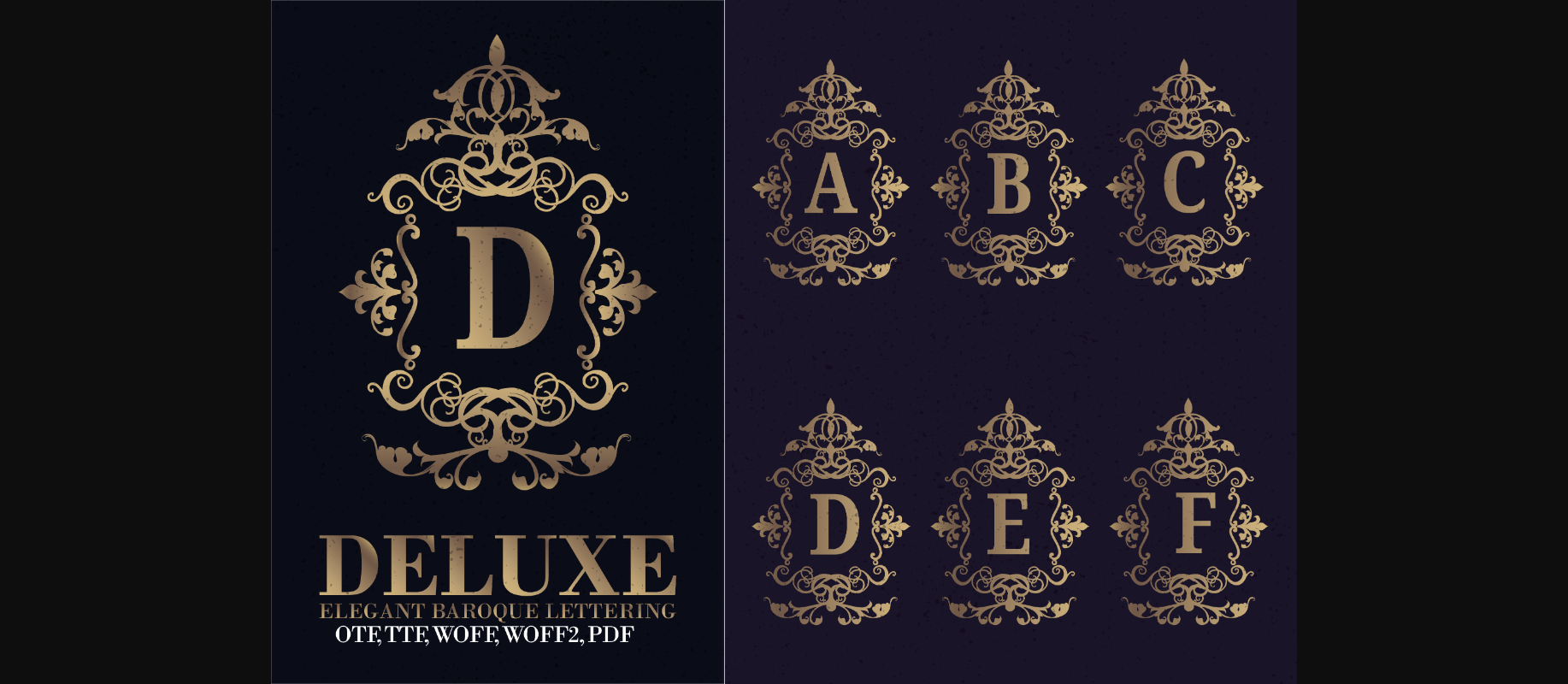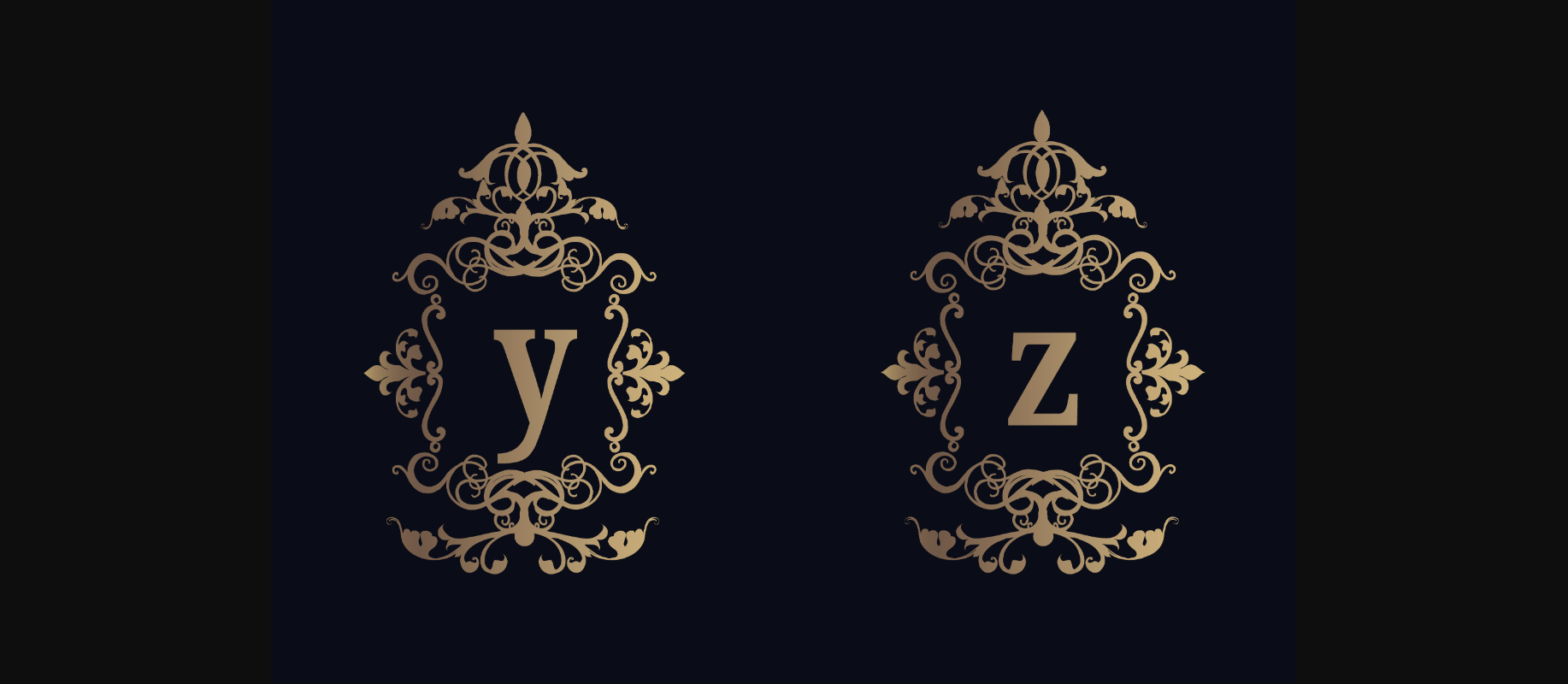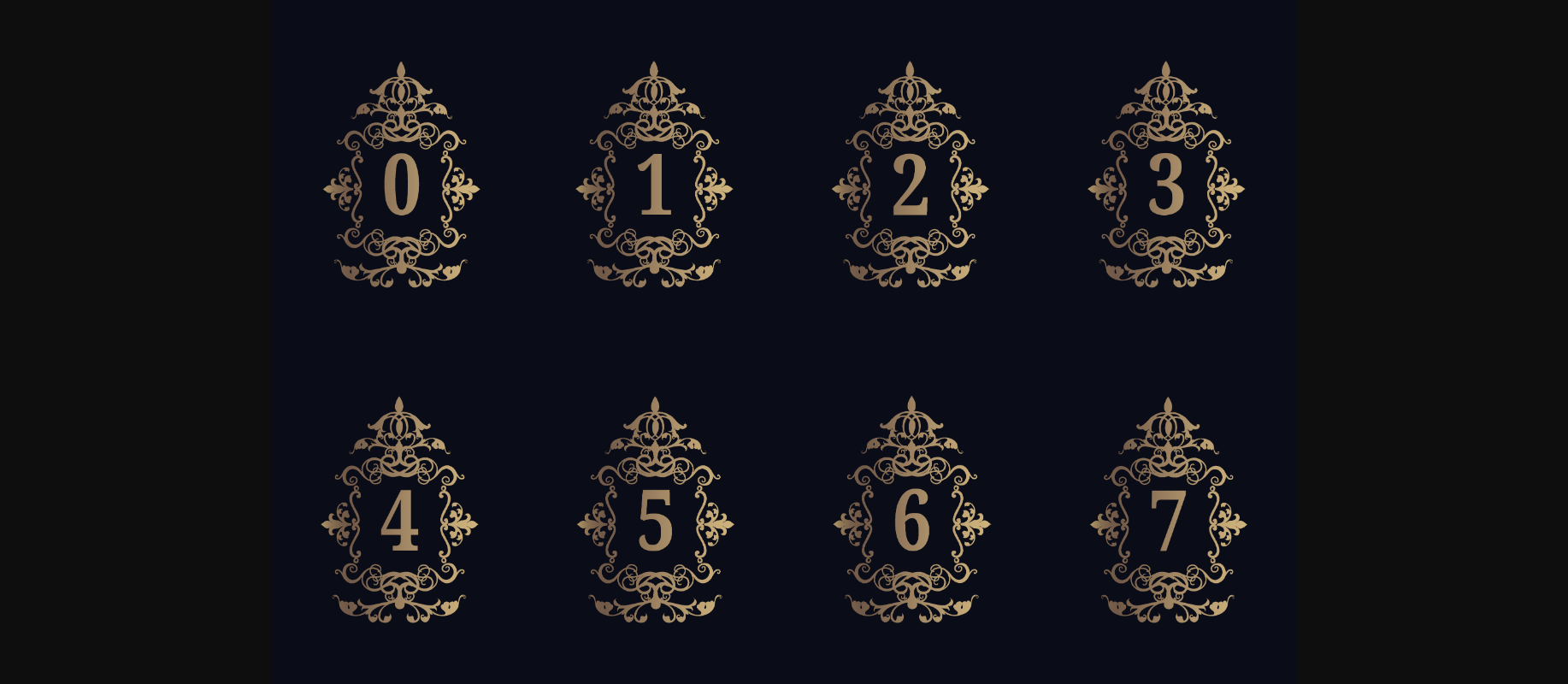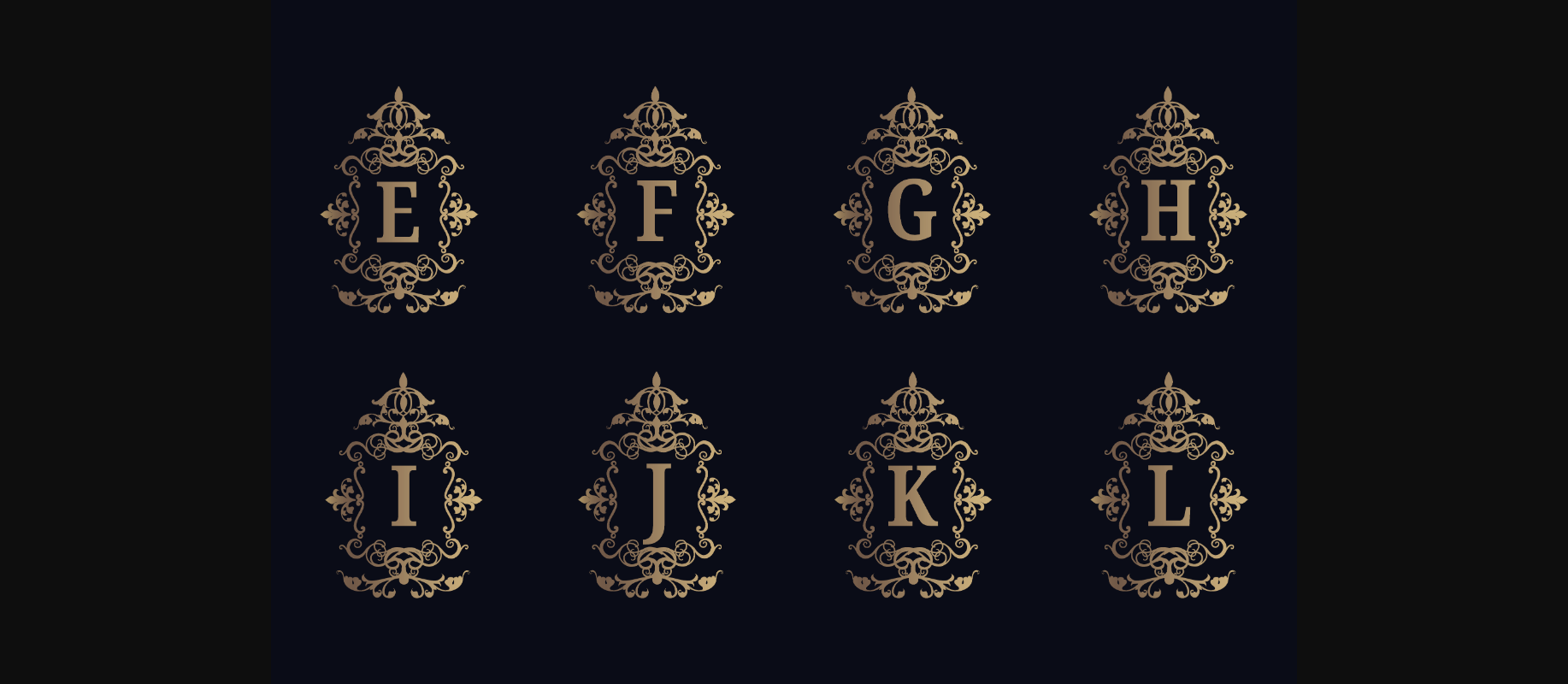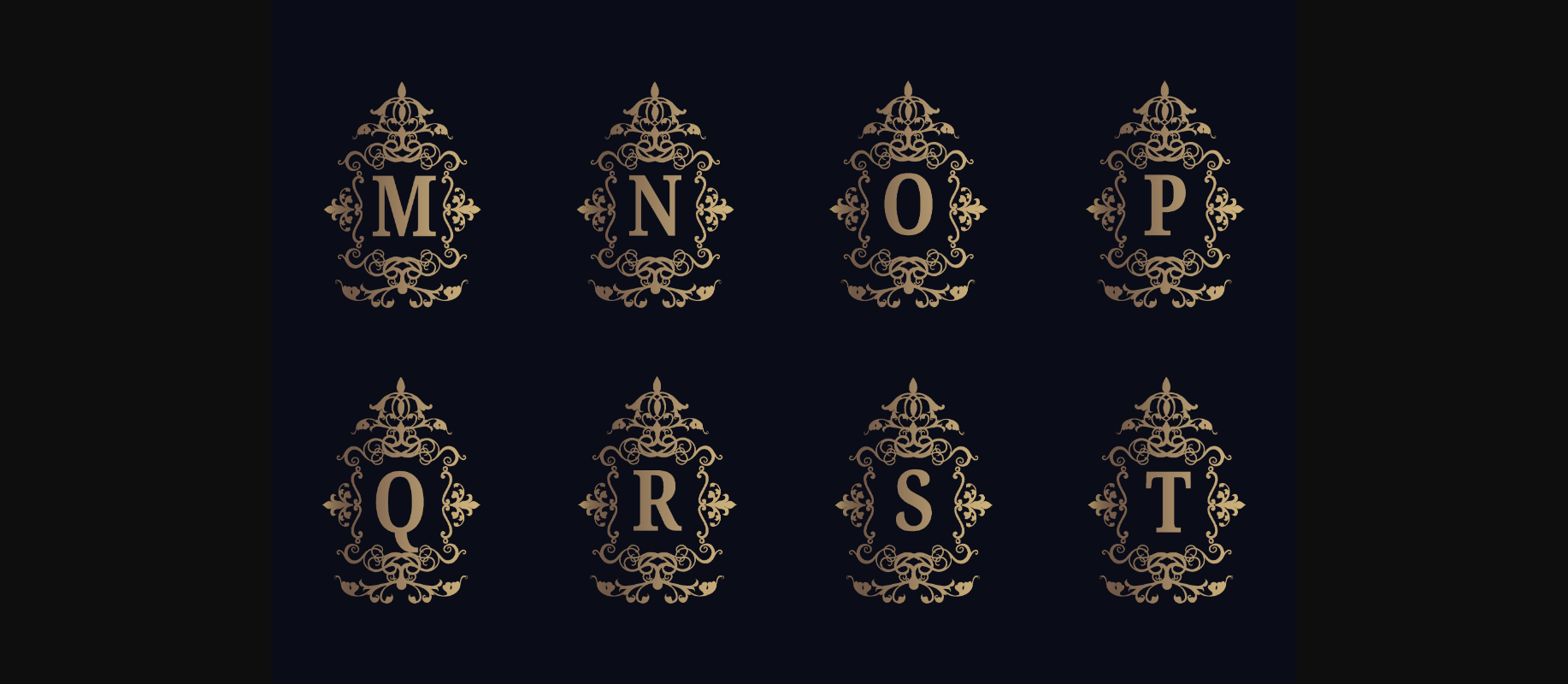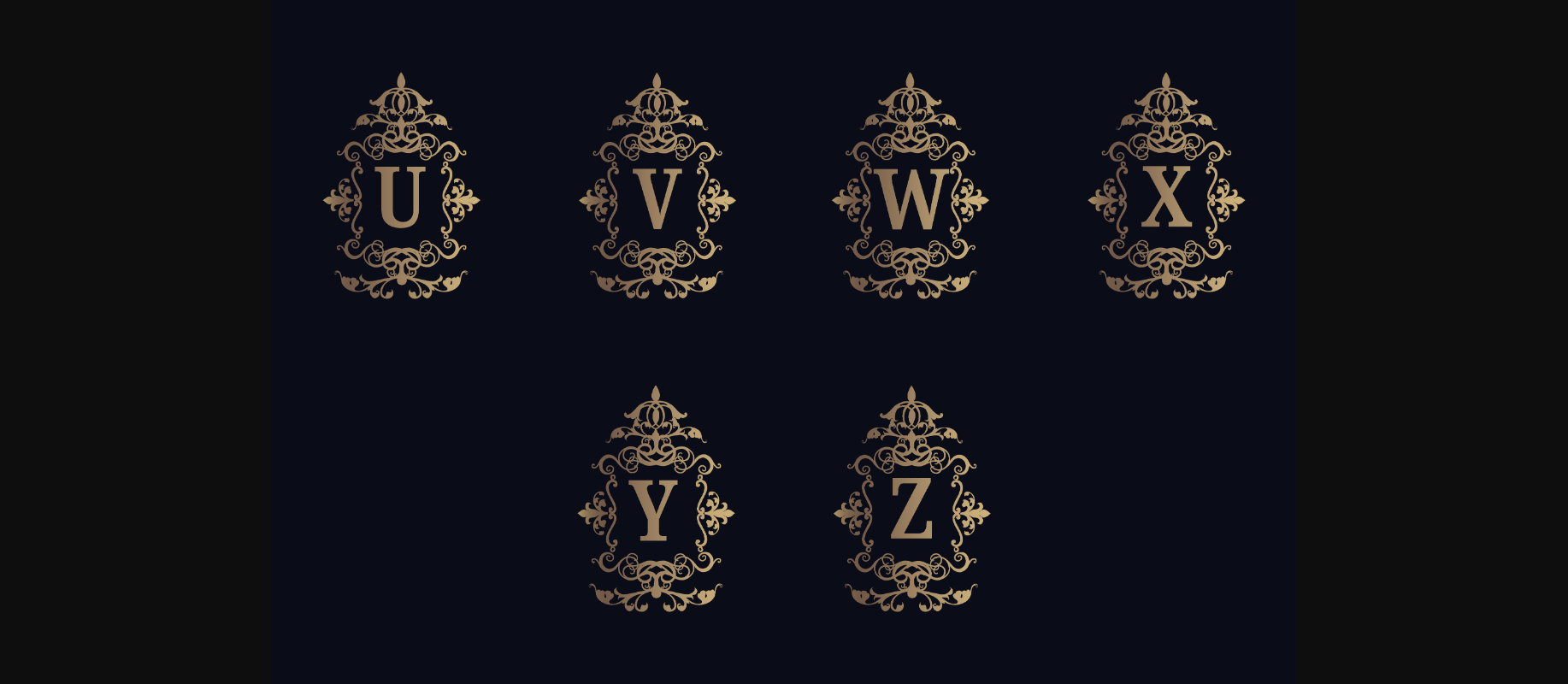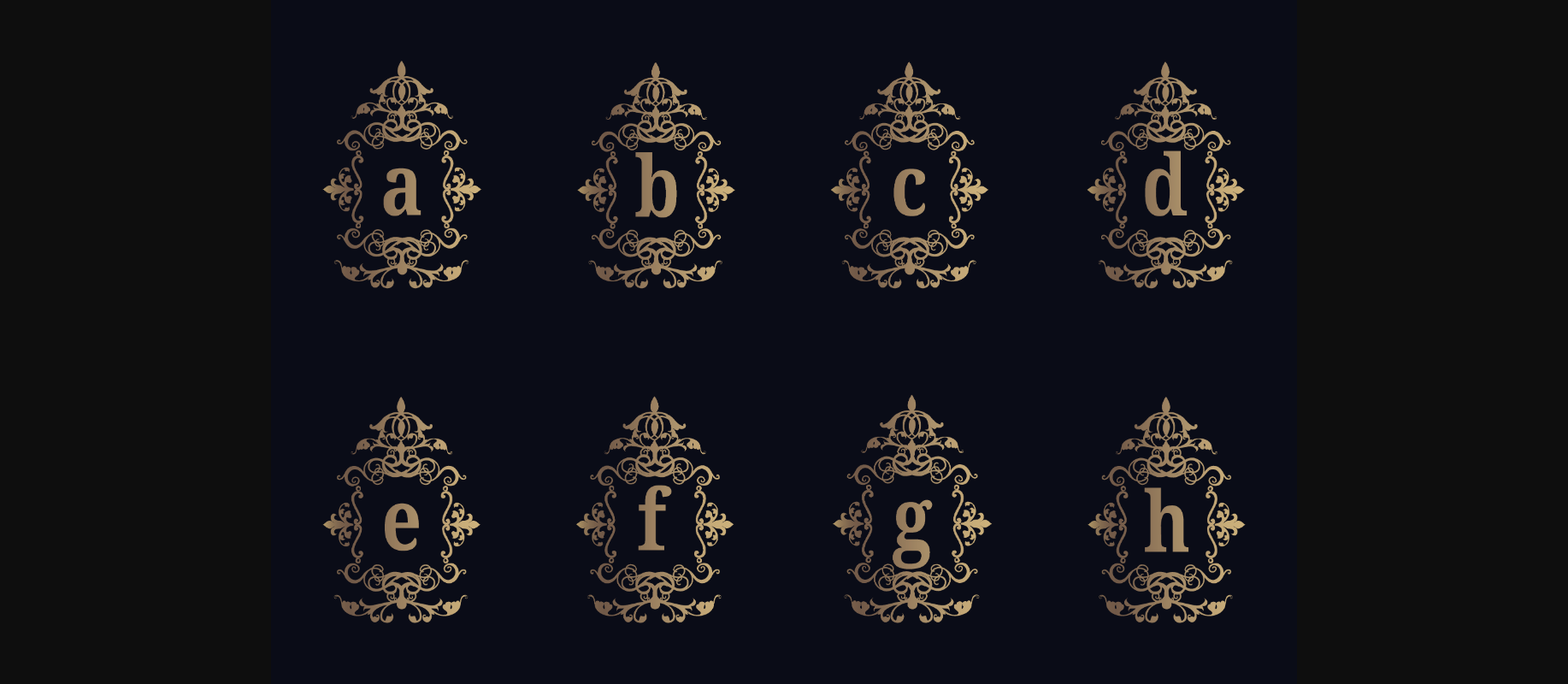
About Baroque Lettering Font
Baroque Lettering Monogram is a unique decorative font designed to help you generate multiple decorated glyphs. Use them to create elegant and luxurious designs for different purposes such as social posts, flyers, invitations, valentine’s day designs, weddings, and more.